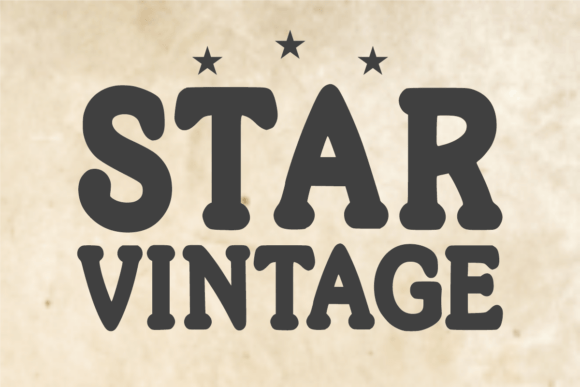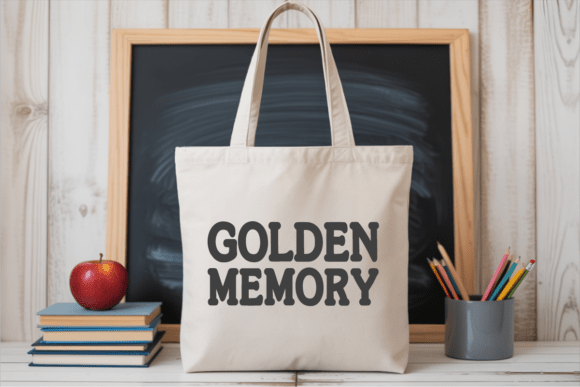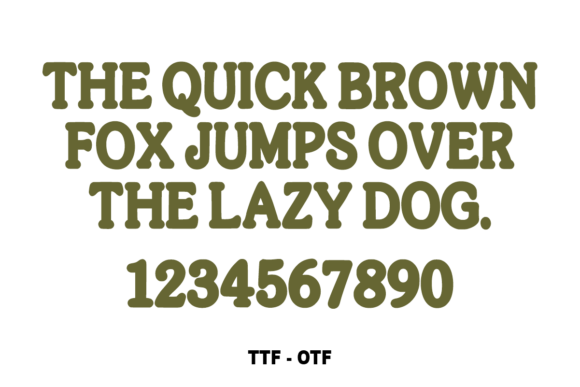
Introduction to Cowboy Vintage Font
Do you ever find yourself browsing through old photographs or dusty bookshelves, feeling an overwhelming urge to capture the essence of a bygone era in your design project? For many creatives, the allure of vintage aesthetics is hard to resist, and the right font can make all the difference. That’s where the Cowboy Vintage Font comes in – a high-quality, display typeface that embodies the rugged spirit of the American West.
This font is a design treasure trove, perfect for adding a touch of timeless charm to your next creative project. With its sturdy, slab-serif structures and rounded terminals, the Cowboy Vintage Font is sure to demand attention while maintaining a friendly, approachable vibe. Whether you’re working on a free download for a brewery branding or creating a design resource for a vintage-themed event, this font is a valuable addition to your toolkit.
Key Features of Cowboy Vintage Font
- Unique Western-inspired design with a high-quality aesthetic, perfect for a creative project.
- Comes with a transparent background, allowing for seamless integration into any design.
- Perfect for creating a nostalgic or retro feel in designs, with a distinctively vintage look.
- Supports a wide range of languages, making it a versatile design element for various creative projects.
Honest Review: Cowboy Vintage Font
What works well with the Cowboy Vintage Font is its high quality design and unique aesthetic. The font is perfect for creating a distressed, vintage look that’s perfect for creative projects like album art, posters, or even branding materials.
- ✨ Transparent background: The font has a transparent background, making it easy to use on any design surface.
- ✨ High quality design: The font’s design is top-notch, with a level of detail that’s hard to find in free fonts.
- ✨ Great for creative projects: The font is perfect for designers who want to add a touch of vintage flair to their work.
However, there are a few limitations to keep in mind. The font only comes in a limited number of weights, which can make it difficult to use in certain situations.
- ⚠️ Limited weights: The font only comes in a few weights, which can limit its use in certain design contexts.
Overall, I’m really impressed with the Cowboy Vintage Font. It’s a great resource for designers who want to add a touch of vintage flair to their work without breaking the bank.
The Cowboy Vintage Font is ideal for a variety of creative projects, including logos, posters, business cards, and more. It’s also a great choice for designs that require a high level of detail and texture.
To get the most out of the Cowboy Vintage Font, try pairing it with other design elements that have a similar texture and style. You can also experiment with different font sizes and colors to create a unique look. Additionally, consider using the font in conjunction with a transparent background to create a design that stands out.